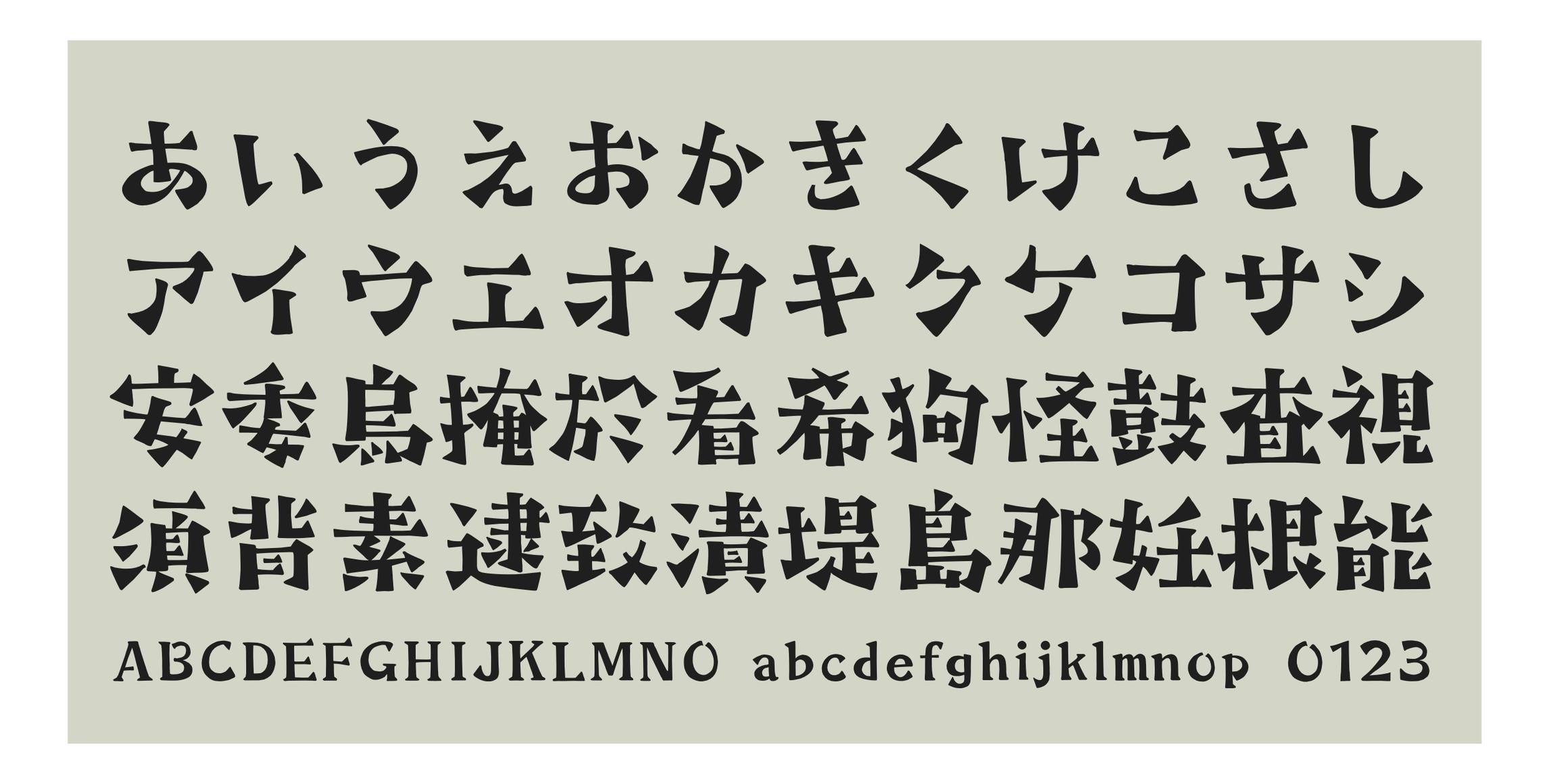
By designing it as a tightly packed module and making the initial sound large, it provided a cool and spacious space.
The flow of lines when typesetting gives an affectionate impression.